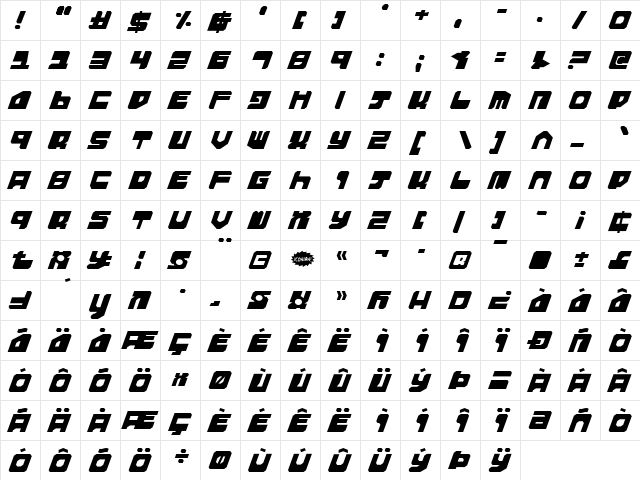
Extechchop Regular
Design Context for Extechchop Typeface
Extechchop has a distinctly futuristic character, with geometric precision and clean angles that feel at home in technology, gaming, and sci-fi contexts.
Pro Tip: Try Extechchop with generous letter-spacing in UI labels and navigation — the geometric forms benefit from room to breathe.